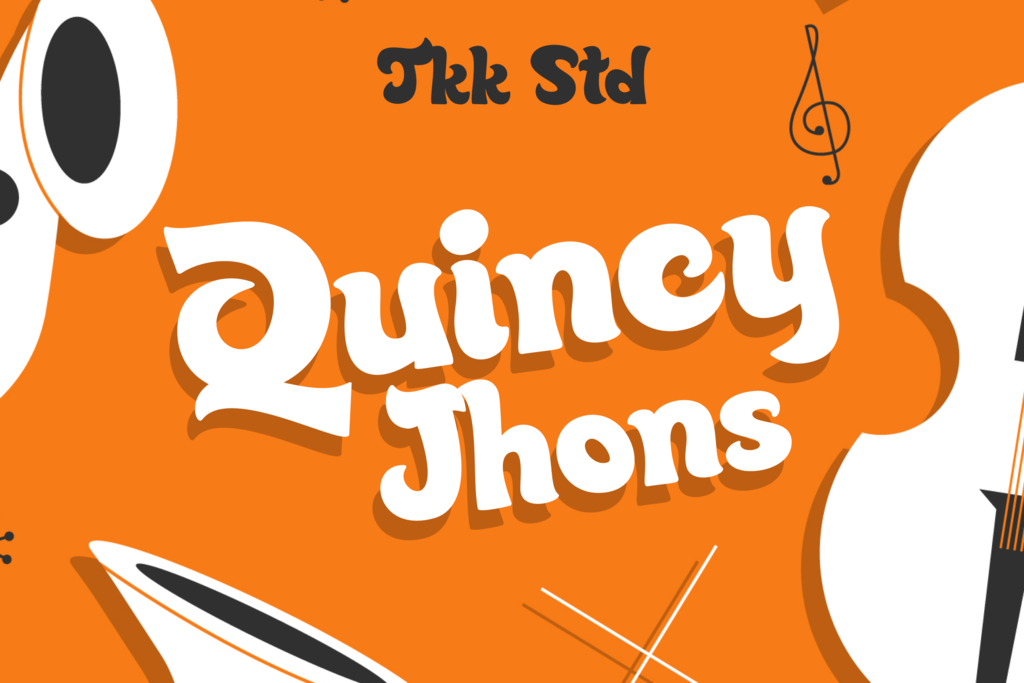
Quincy Jhons bold font has the organic curves and rounded corner gives the sense of nature and humanic touch in each letter. Quincy Jhons comes with bold attitude but in a sexy way, just like a jazz groves that grow inside your soul. The chubby but strong shape, not only will boost its read-ability, but also makes higher impact as a headlines.
Suits perfectly as a DISPLAY FONT and used in billboards, posters, logos; headlines or headings in magazines or websites, and book covers.
Do combined it with simple sans font, since Quincy Jhons will do its best as complimentary, in that they work alongside other fonts within a type system to deliver emphasis, attract attention, and give your design some personality.